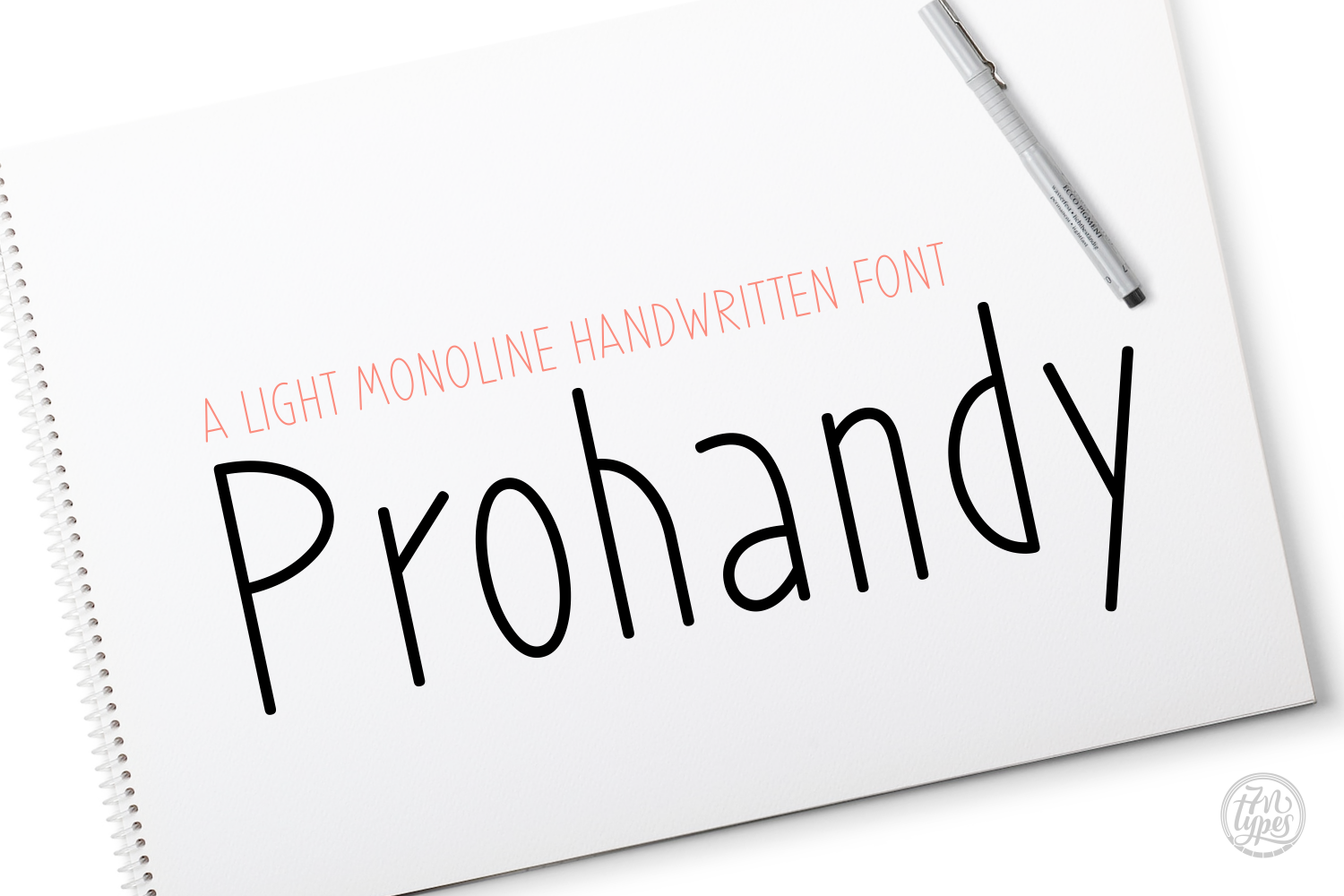
Prohandy Font
About Prohandy Font
Prohandy regular is a light, monoline handritten font.
The font comes as a regular and an italic. Both are very legible which makes it perfect for digital & print.
Although the letters are handwritten, they have an extremely clean feel to it. This makes the font perfect not only for personal projects, but also professional work that needs a slight personal touch. You can use the font for branding, body text, logos and even as a header.